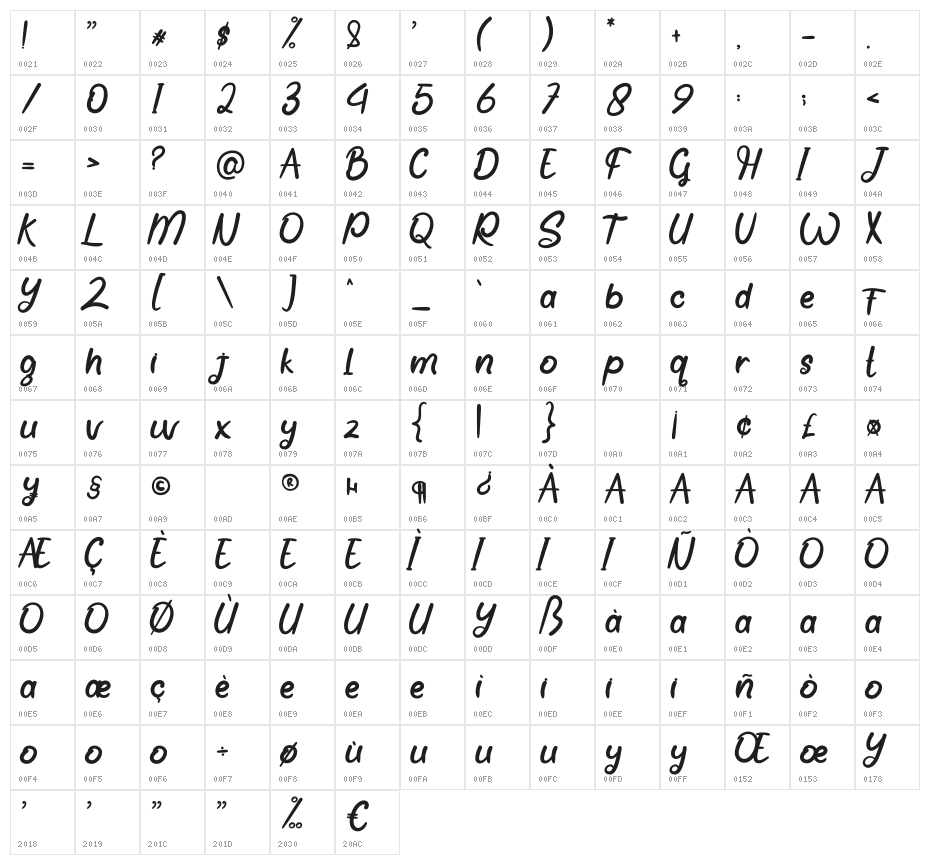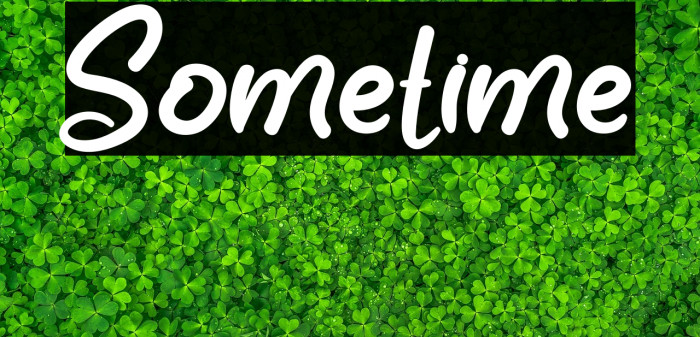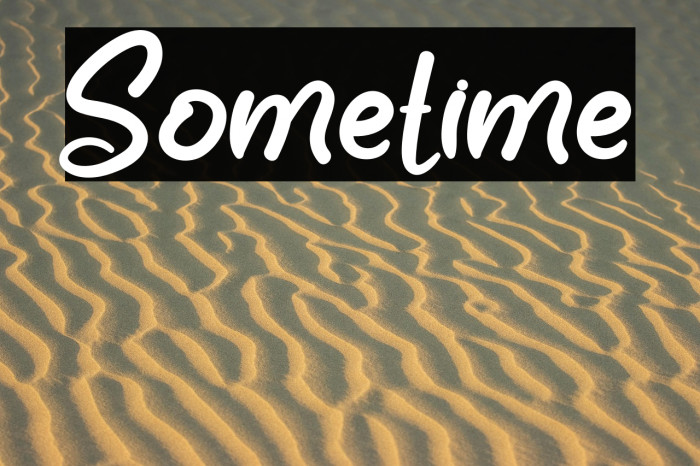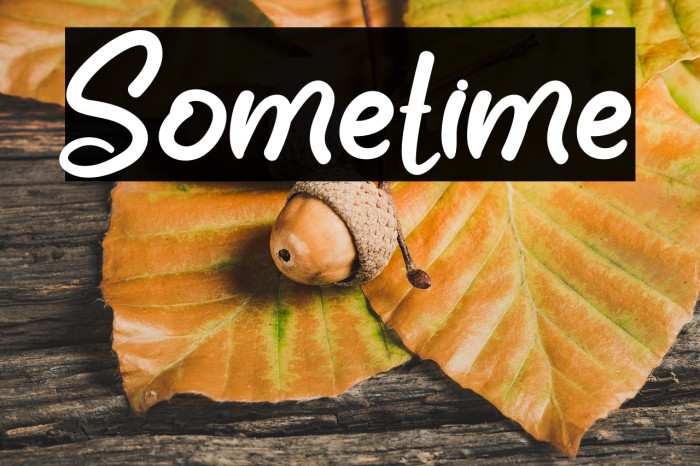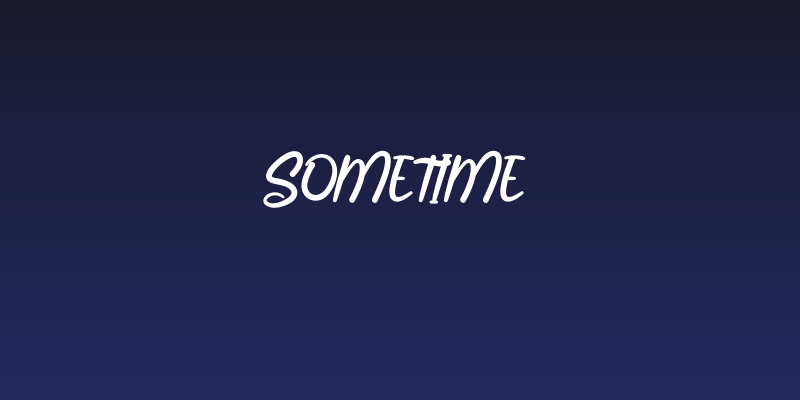
Sometime Font
Sometime Description
This font features a playful and energetic script style, characterized by its fluid and connected letterforms. The strokes are smooth and rounded, giving it a friendly and approachable appearance. It maintains a consistent rhythm throughout, with each character flowing seamlessly into the next. The uppercase letters are bold and prominent, while the lowercase letters are slightly more compact, adding a touch of elegance. The numerals and special characters are designed to match the overall style, ensuring a cohesive look across all text elements.
| Use Case | Logos, Headlines, Invitations |
| Proposed Projects | Ideal for greeting cards, invitations, branding projects, and social media graphics. |